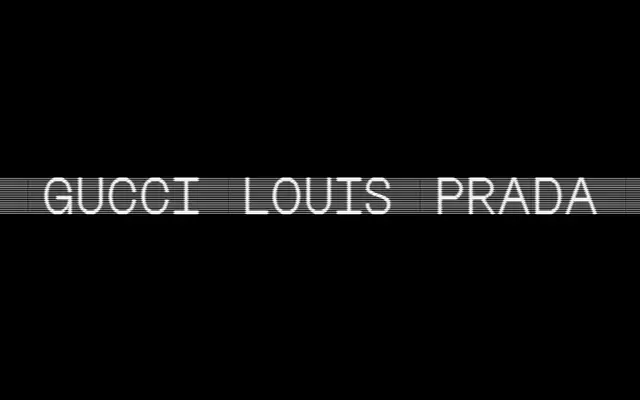
Topoline Variable Font Collection
A variable display typeface from That That Type that moves along an axis from hollow outline to solid fill, with five named stops including Negative, Light, Empty, Bold and Full.
Rather than varying weight in a conventional sense, Topoline uses its variable axis to shift between different states of fill, from a reversed or negative treatment through to a completely solid letterform. The five named styles give designers distinct visual registers within a single font file. Coverage is limited to basic Latin, numerals and general punctuation, placing it firmly in display and titling territory.
Topoline is a variable display typeface with named stylistic extremes ranging from Negative (outline/reversed) to Full (filled), suggesting a geometric or constructed letterform approach used primarily for titling and expressive work.